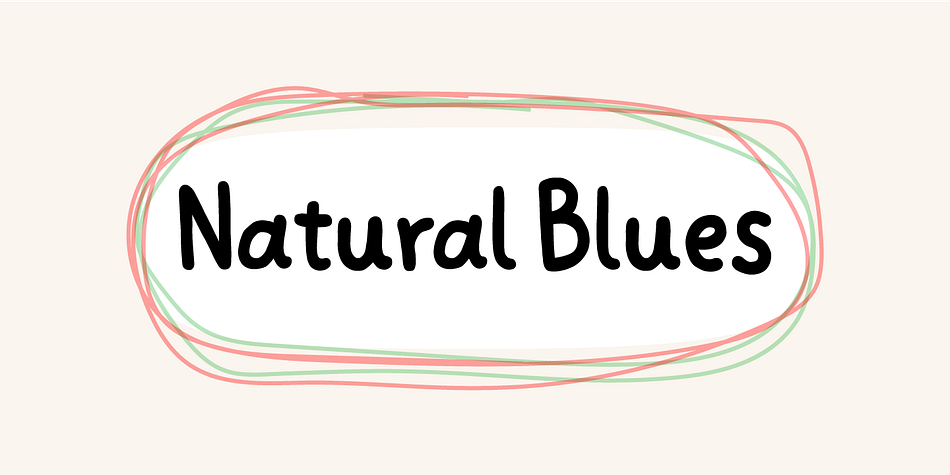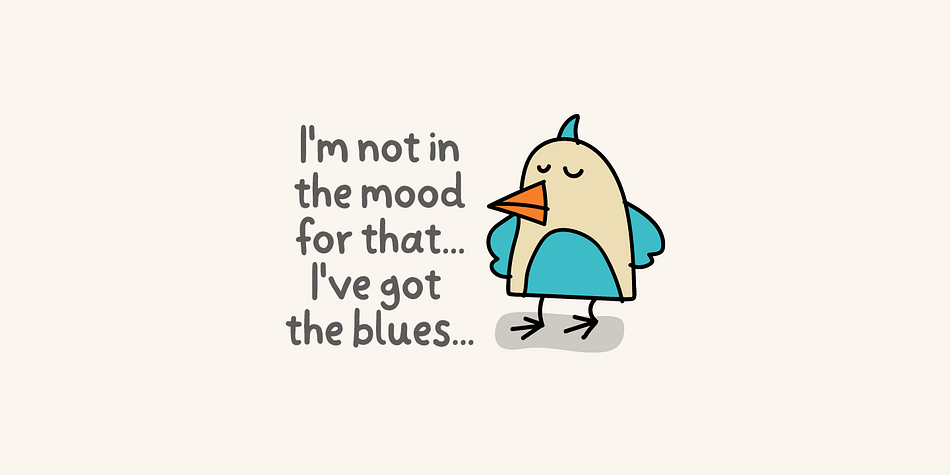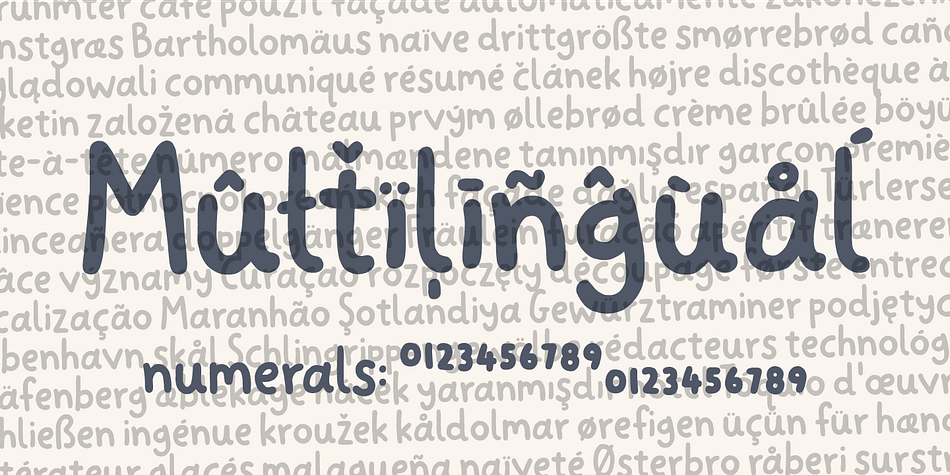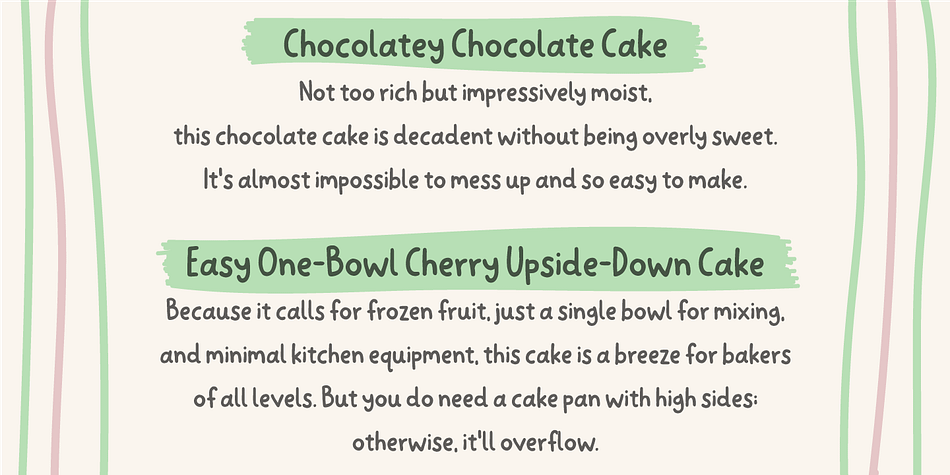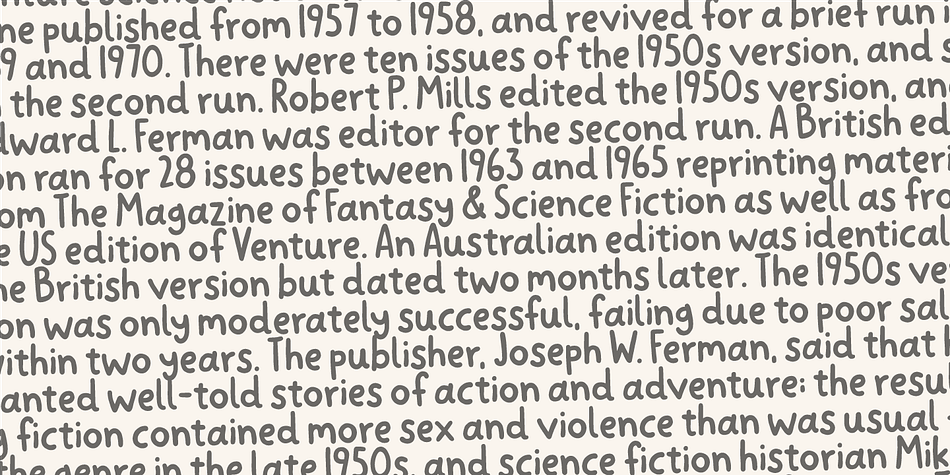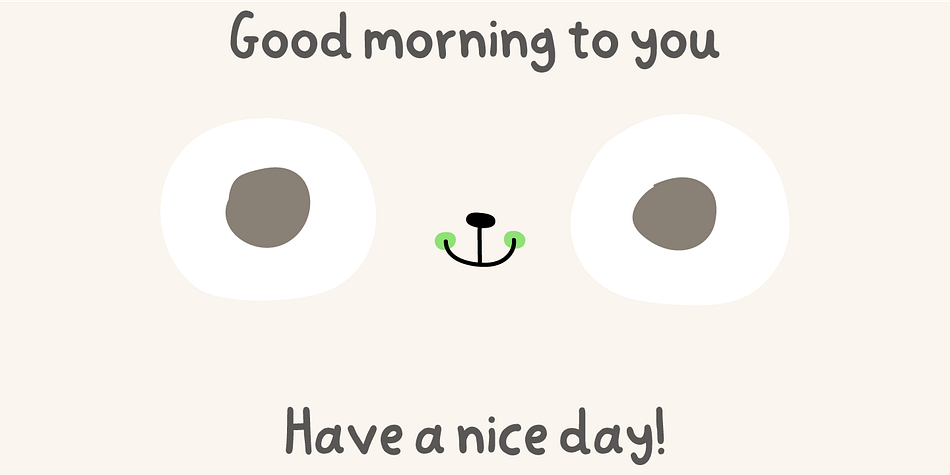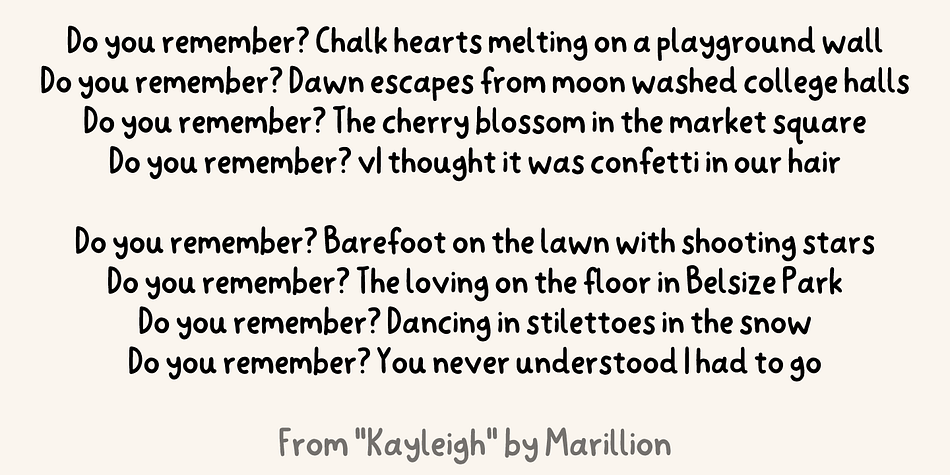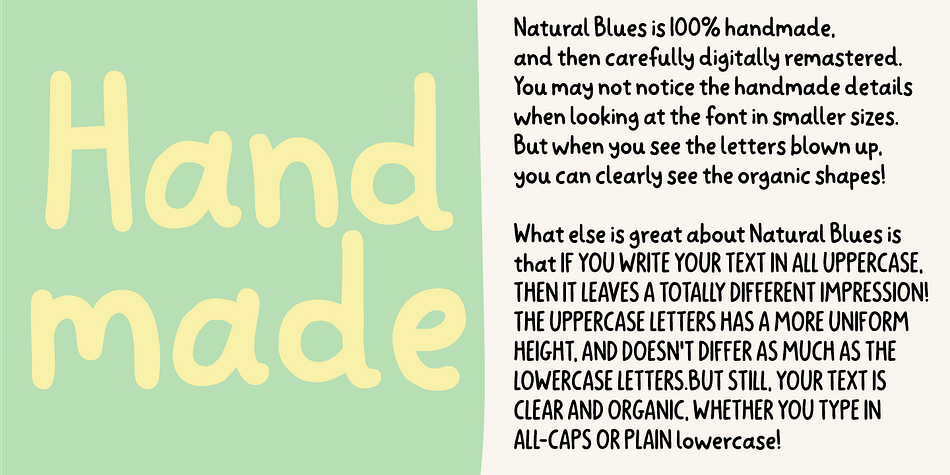
Natural Blues
Designed by Jakob Fischer, Natural Blues is a hand drawn and kids font family. This typeface has two styles and was published by Bogstav.
Natural Blues is my laid back handwriting font, and it is also the name of a song by Moby.
Maybe I was inspired by that song … I can’t tell. But what I can tell is that having the blues is a natural thing!